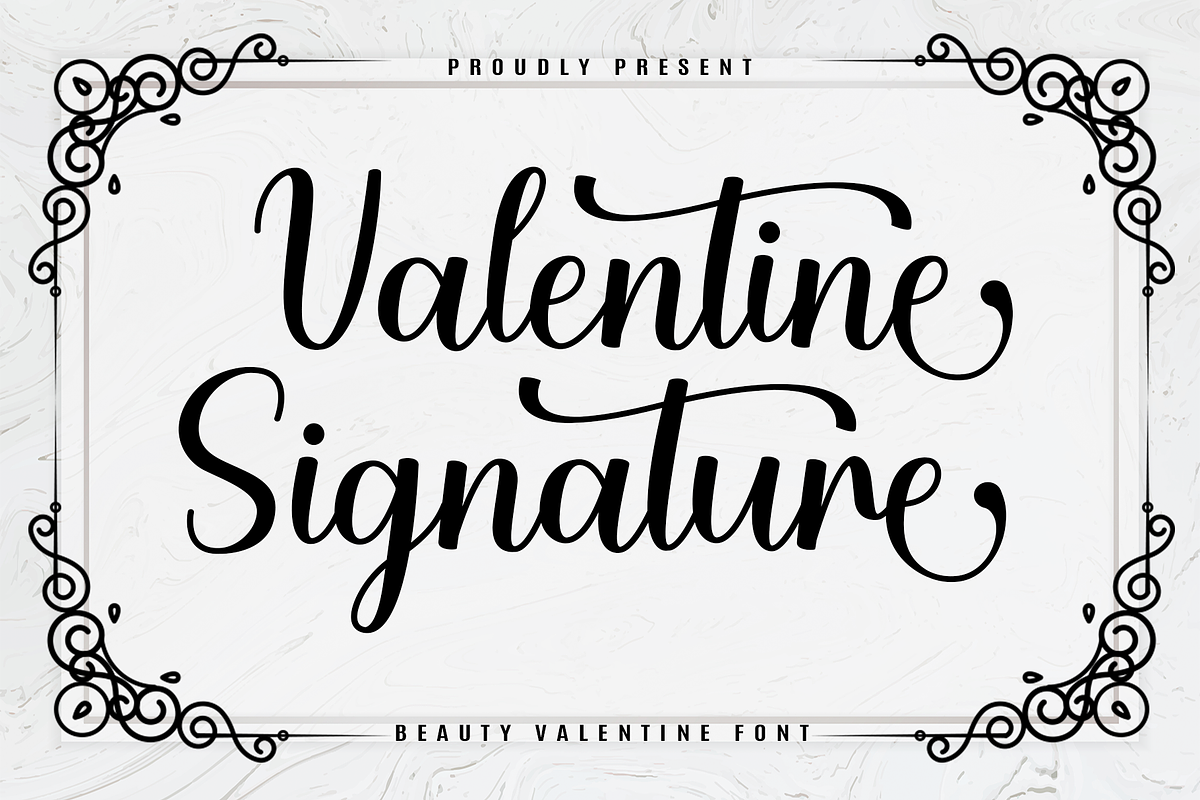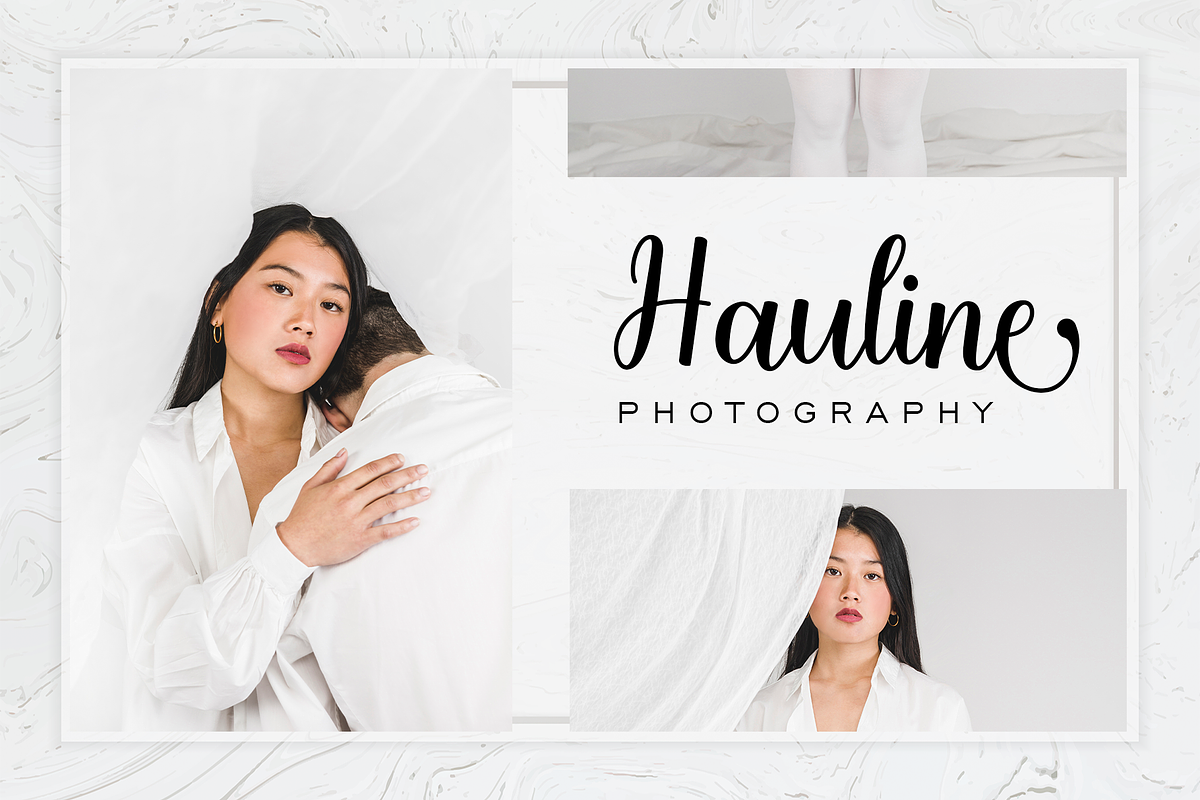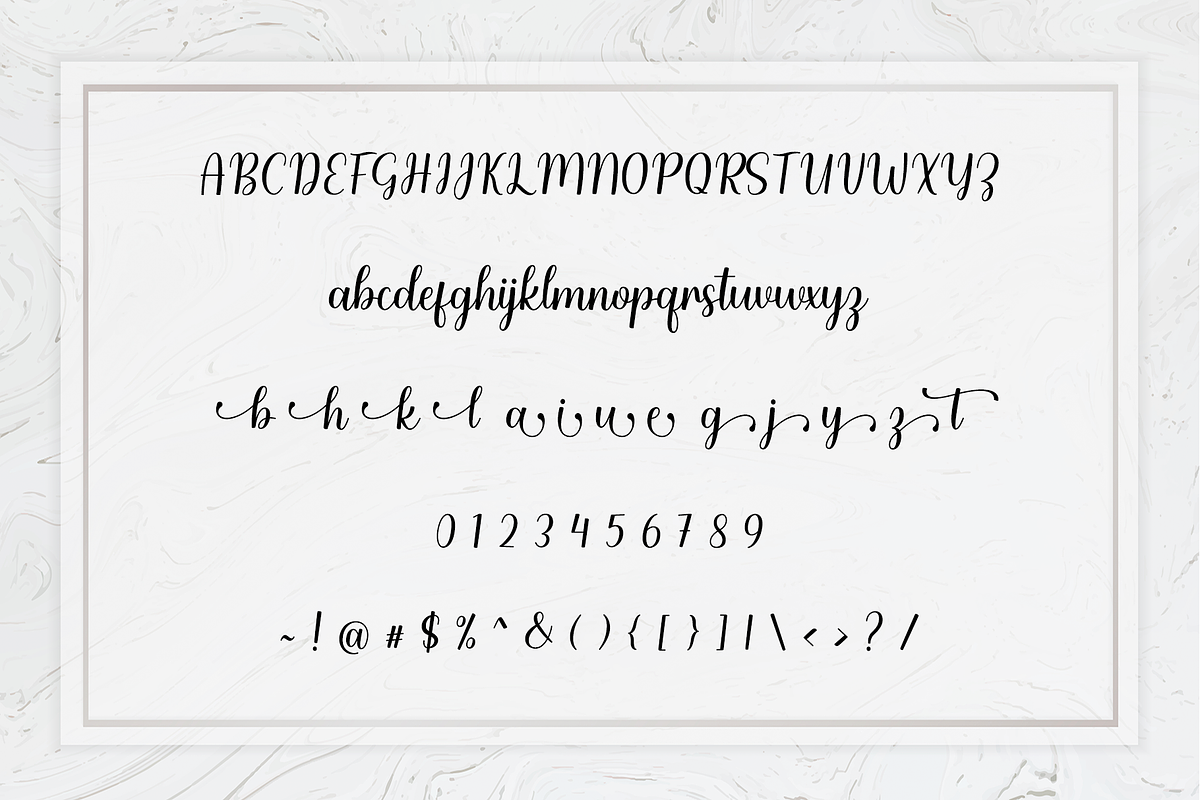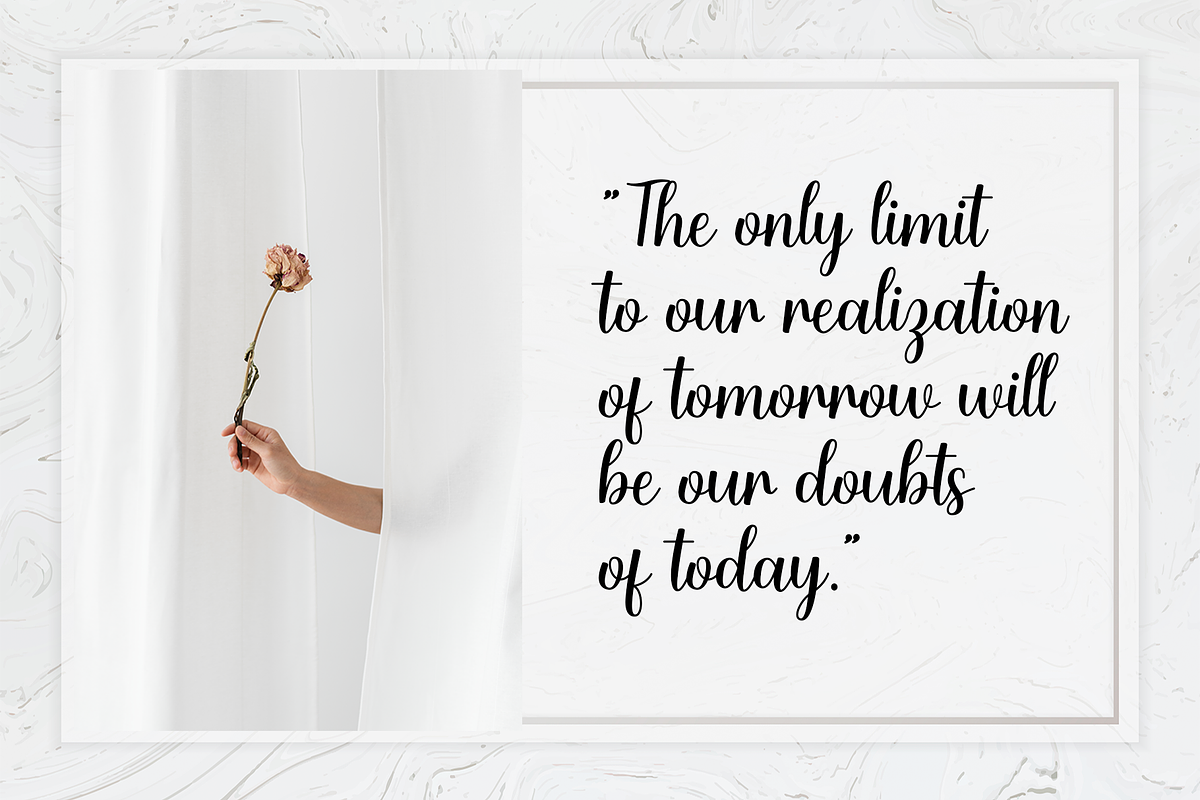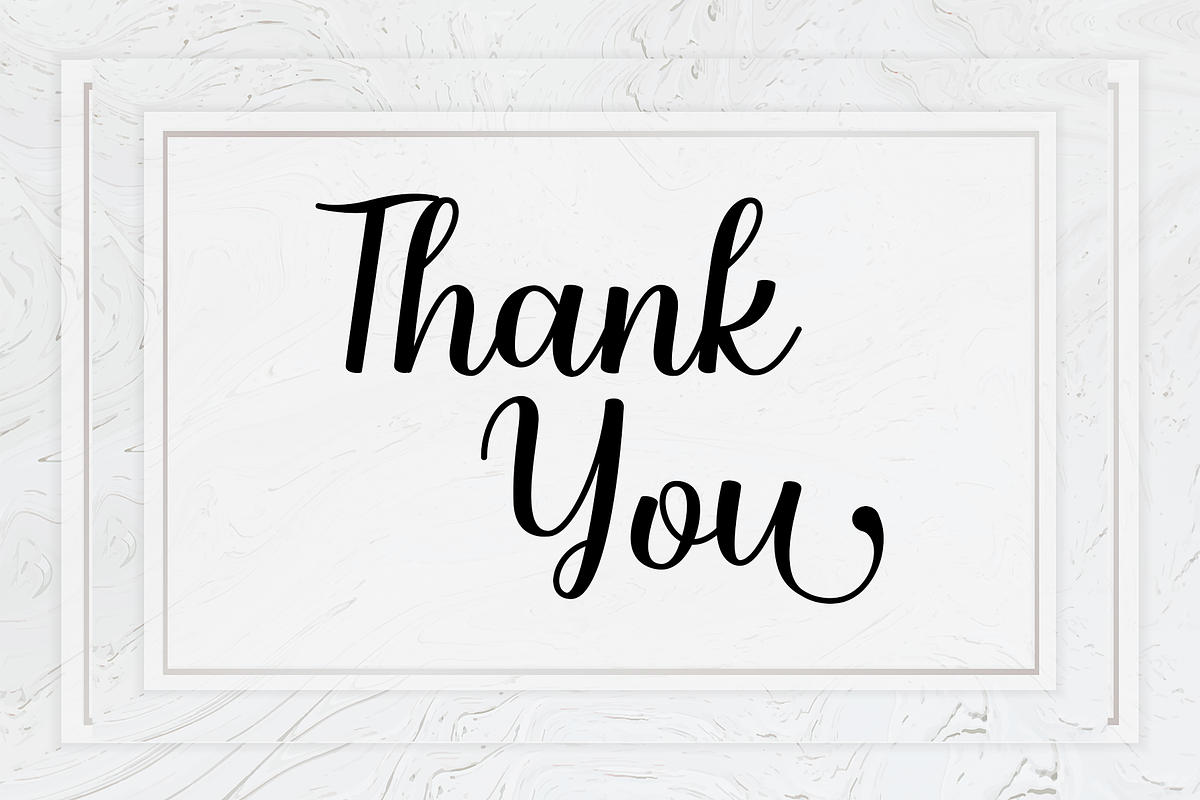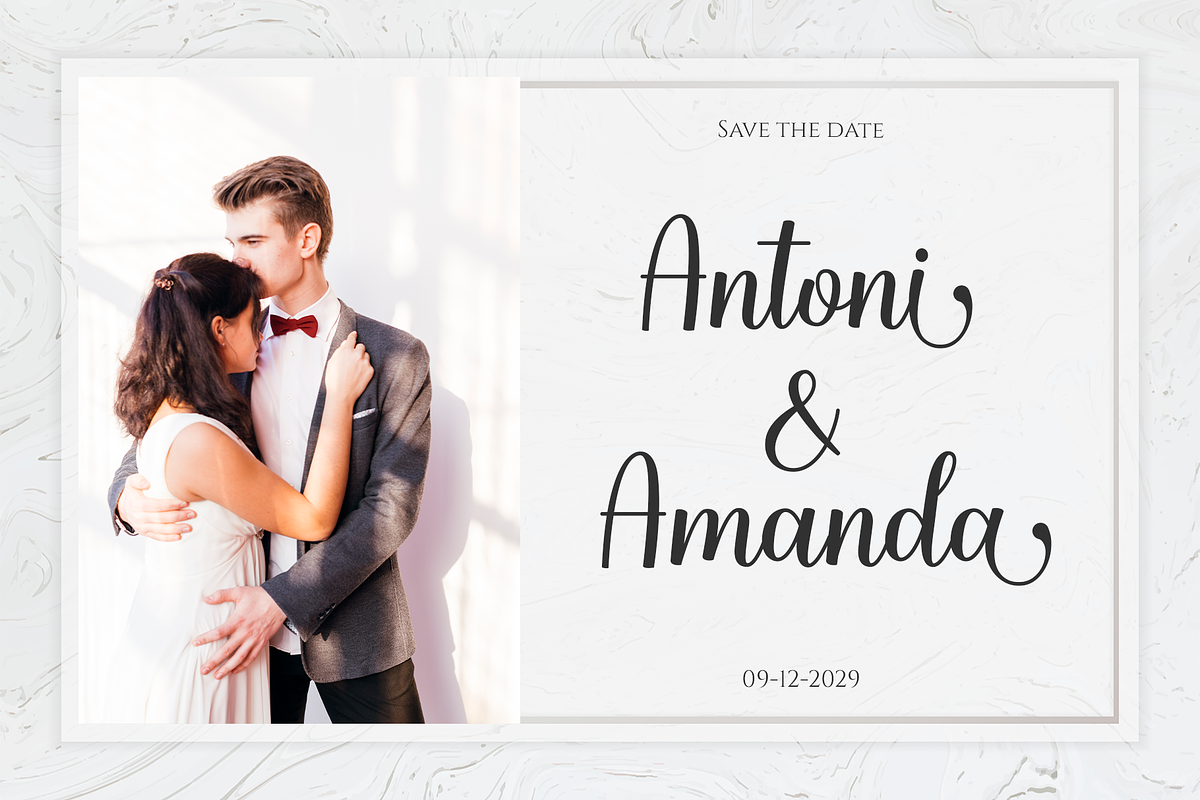
Valentine Siganture
The Valentine Signature font is an elegant expression of romance and high-end beauty. This Valentine Signature typeface features a sophisticated calligraphic script with sweeping, graceful flourishes and varying stroke widths that mimic the movement of a master’s pen. It is a premium choice for wedding stationery, luxury beauty branding, and romantic editorial headers.
With the Valentine Signature font, you can add a layer of timeless prestige to your designs. This Valentine Signature typeface shines when framed by intricate, vintage-inspired borders and paired with high-quality paper textures. Whether you are designing a logo for a high-end spa or creating bespoke Valentine’s cards, its exquisite curves and professional polish ensure a result that is both intimate and grand.
Boasting a captivating allure, this fascinating font promises to shine in whatever form it’s employed, consistently delivering a remarkable and striking finish. The Valentine Signature manifests the perfect blend of style and versatility, empowering it to steal hearts effortlessly and punctuate the language of love this Valentine’s Day.